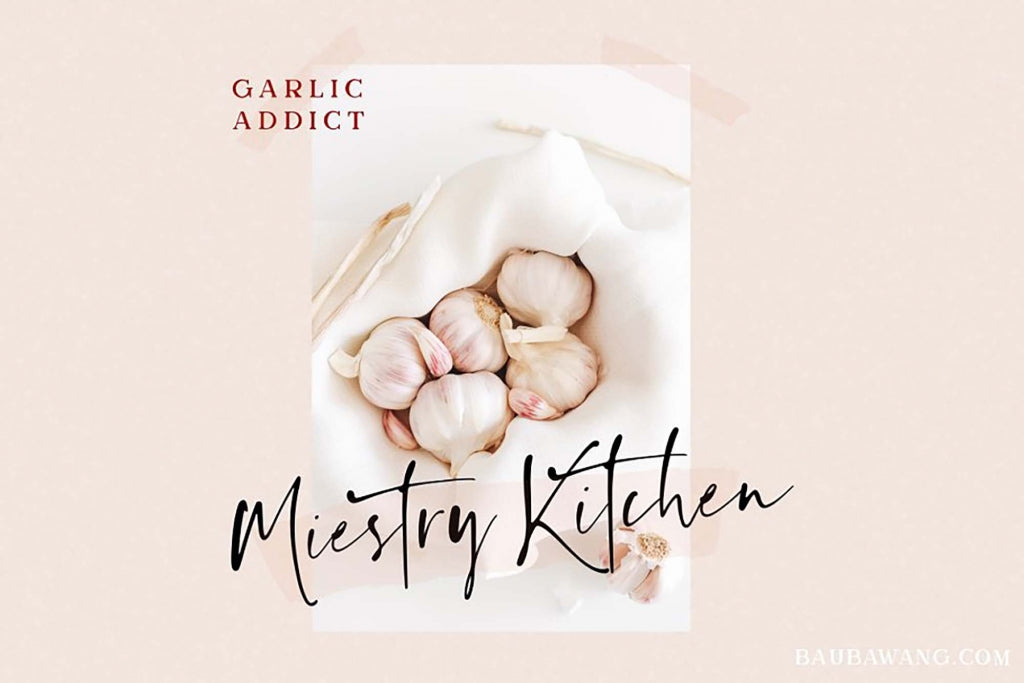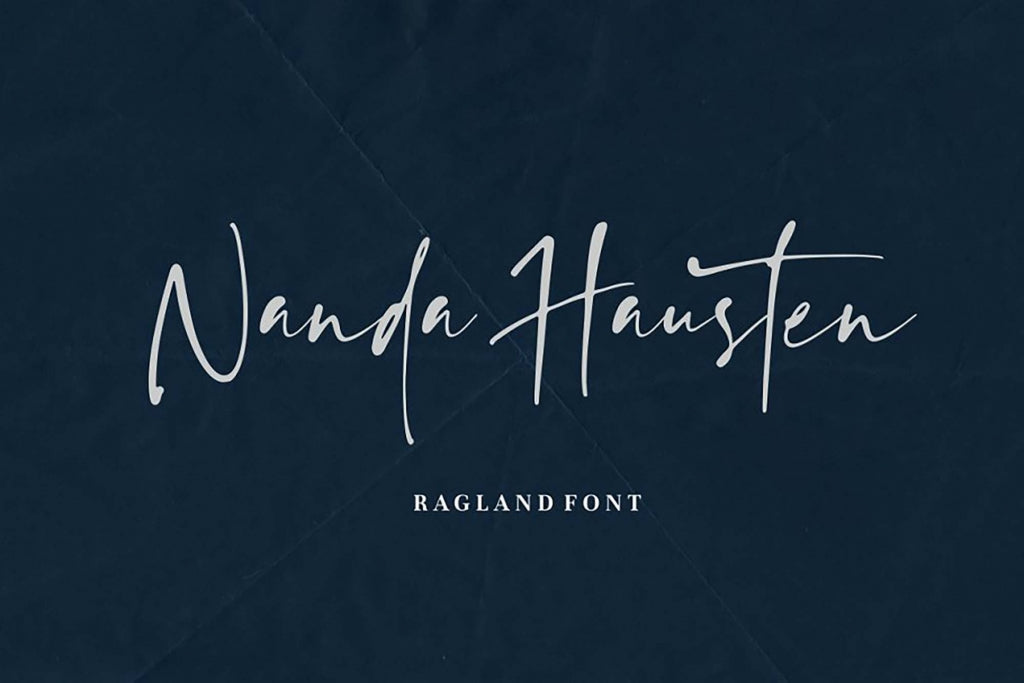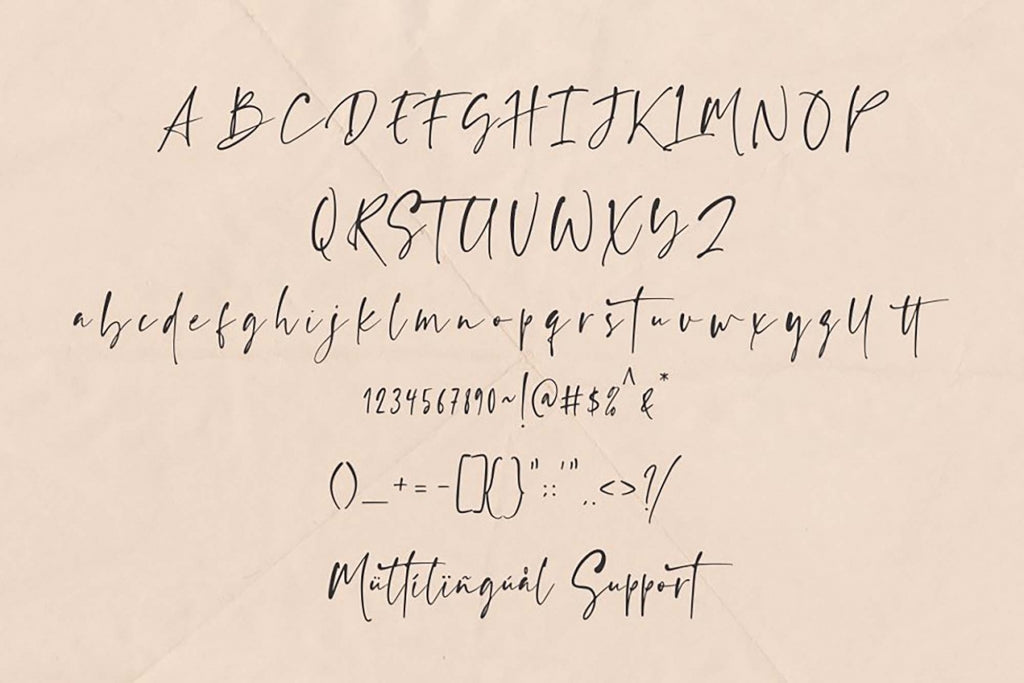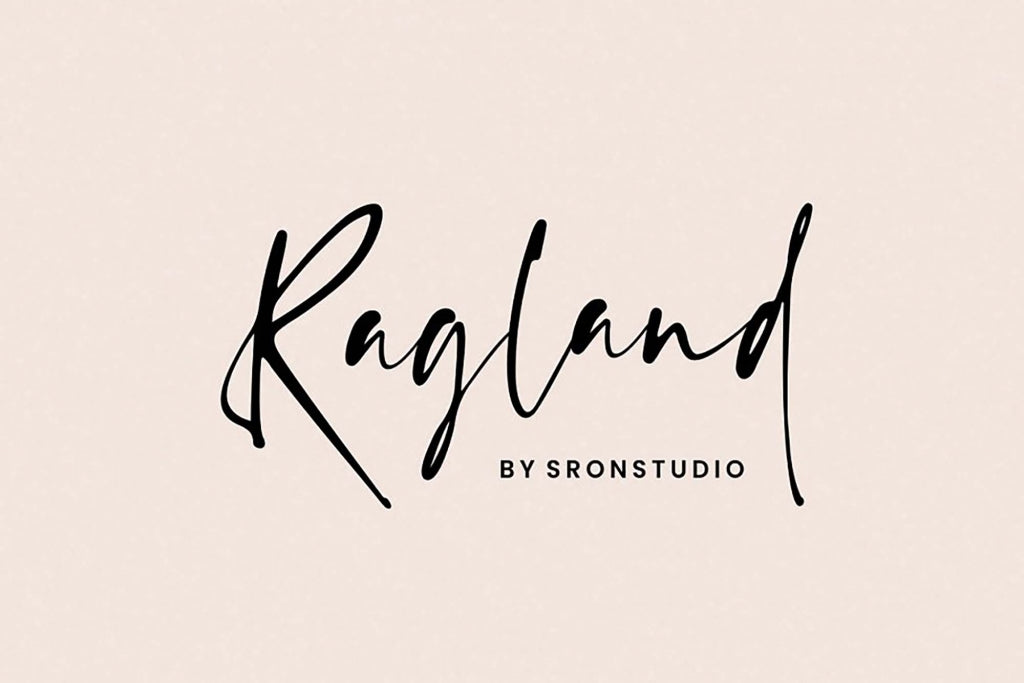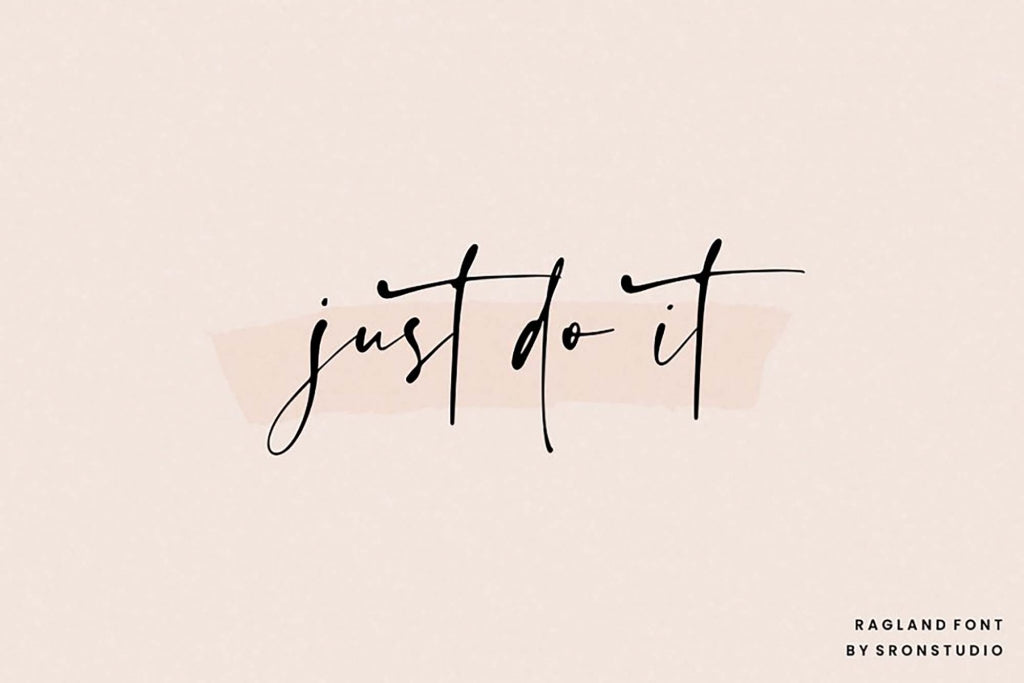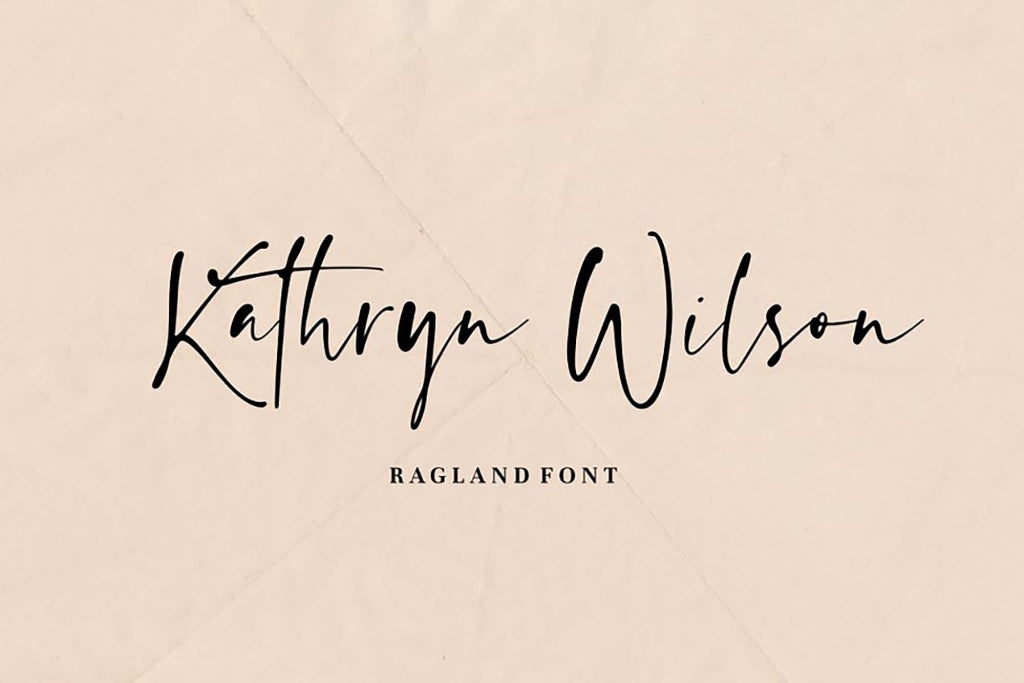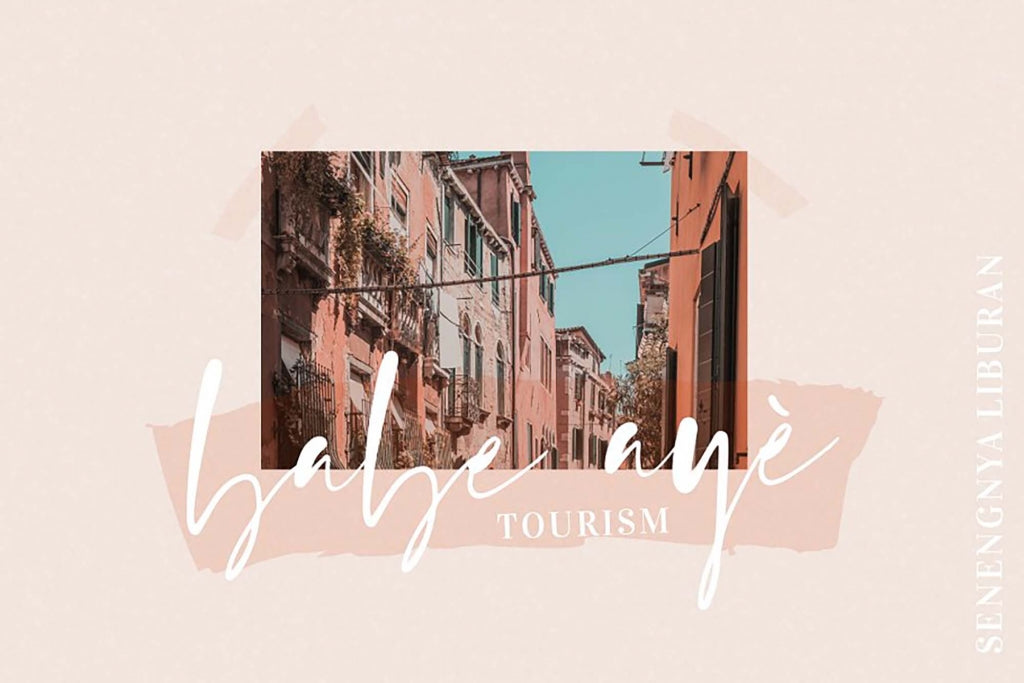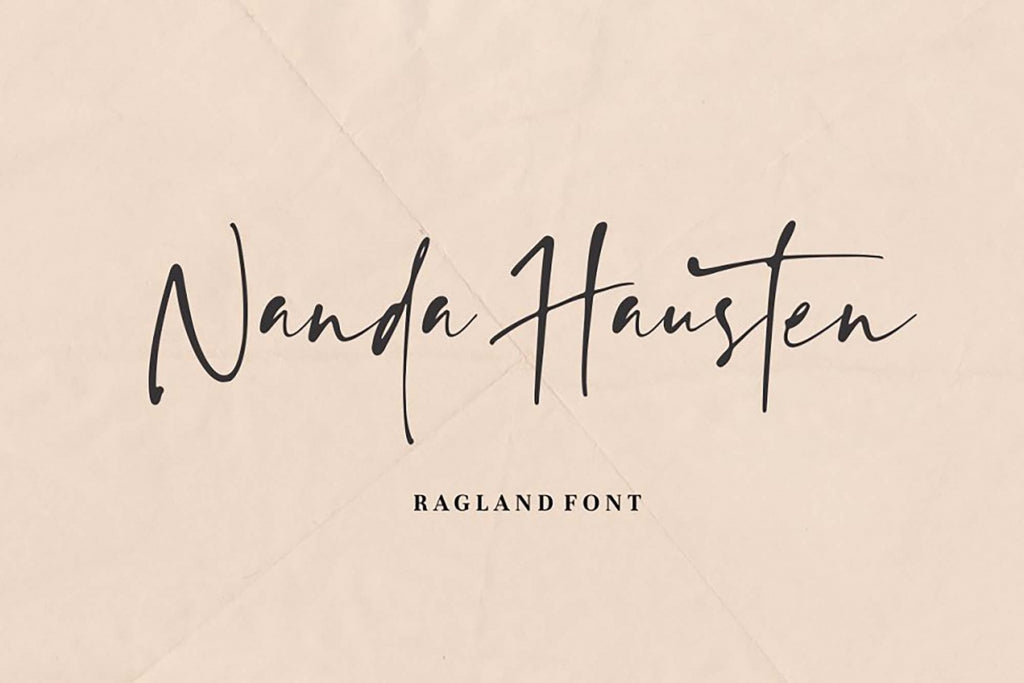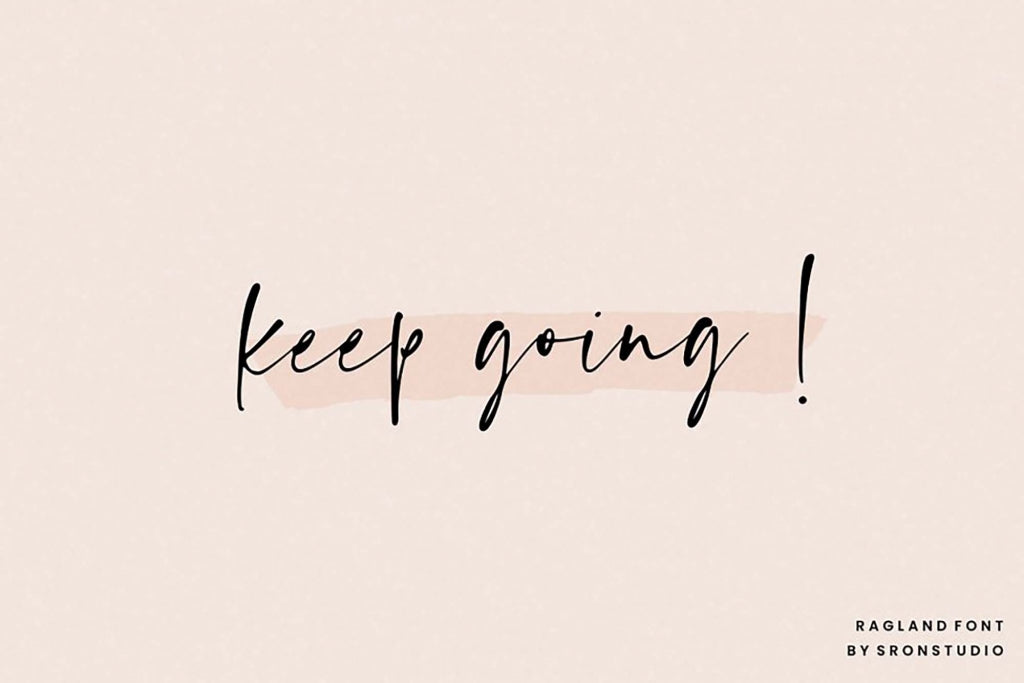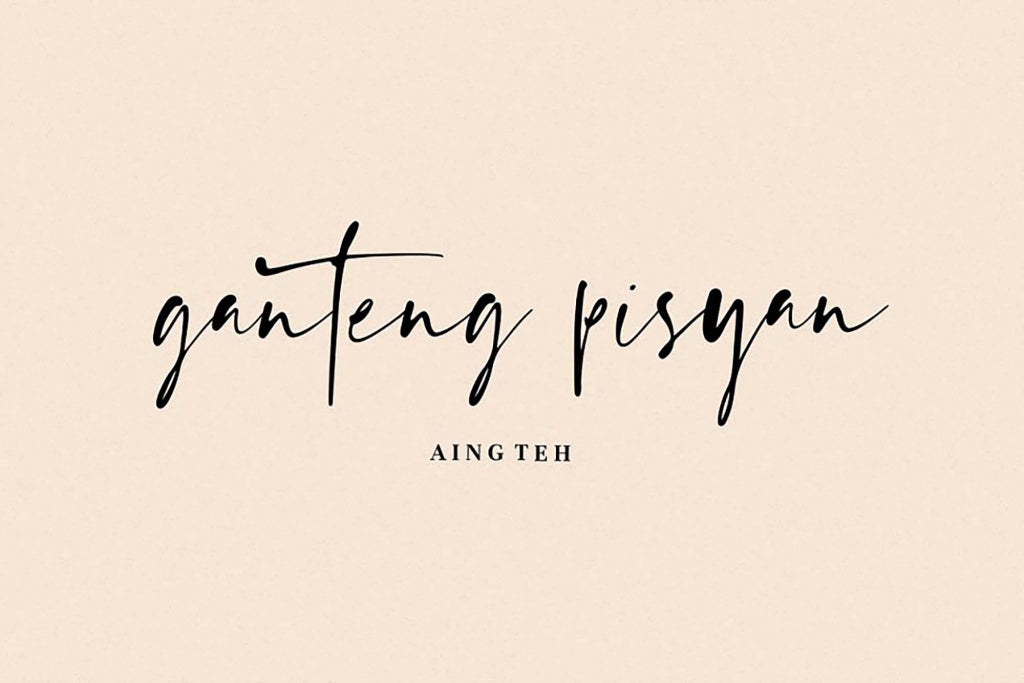
Ragland Handwritten Font
The human hand is an astounding tool, and we have an immense amount of respect for that. But some talents take a long time to master, and for those who don’t like to wait, we present to you this unique handwritten font created by Sron Studio.
The freebie font with the name of Ragland is a work of art carried by each simple letter, and with each word you type, you create a magnificent sight to see. The mixture of the different strokes and the stylish uppercase and lowercase letters allows you to present to others an elegant appearance. And if combined with other fonts (bolder, thicker), the end-results would be out of this world. Imagine all the projects that you can include it in such as posters, business cards, logos, websites, social media banners, artwork, invitations, ads, etc. This is the free version that includes basic characters for personal projects, but the commercial version includes a full set of letters, numerals, punctuation and multilingual symbols.